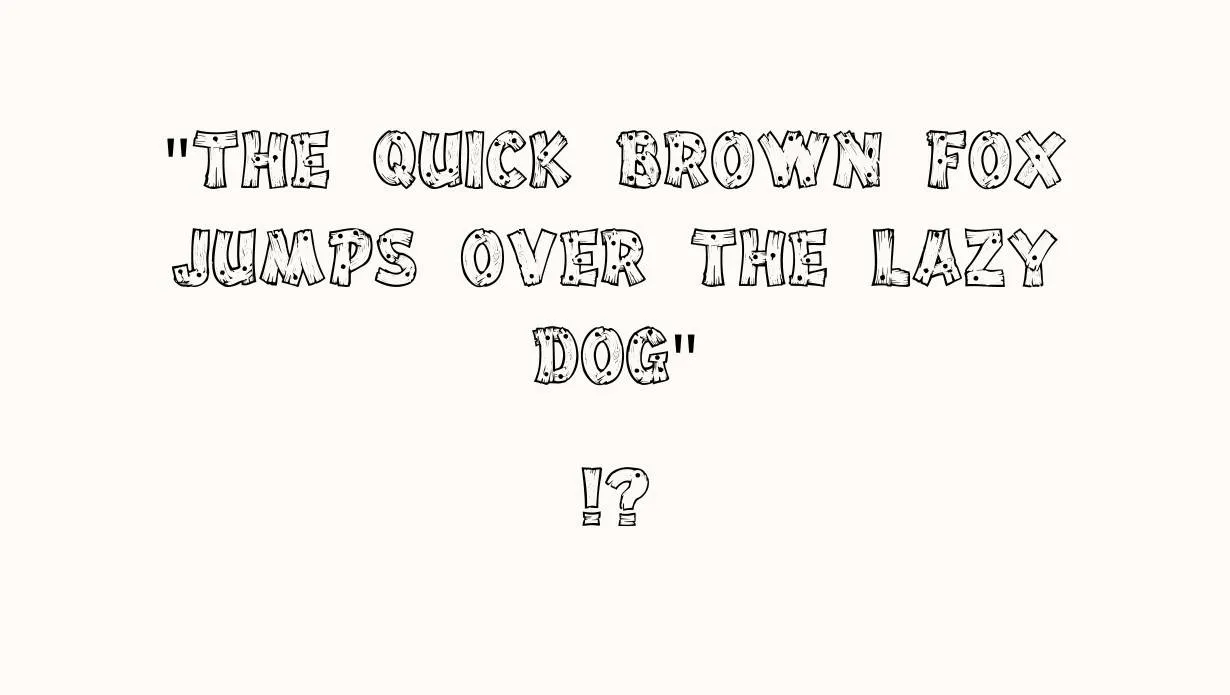
Driftwood Font is inspired by the organic shapes of driftwood often found on beaches.
It’s a perfect choice for nature-themed projects, coastal designs, and projects that aim to convey a sense of the seaside.
Combining this typeface with the gravity points font opens up the potential to create stunning displays.